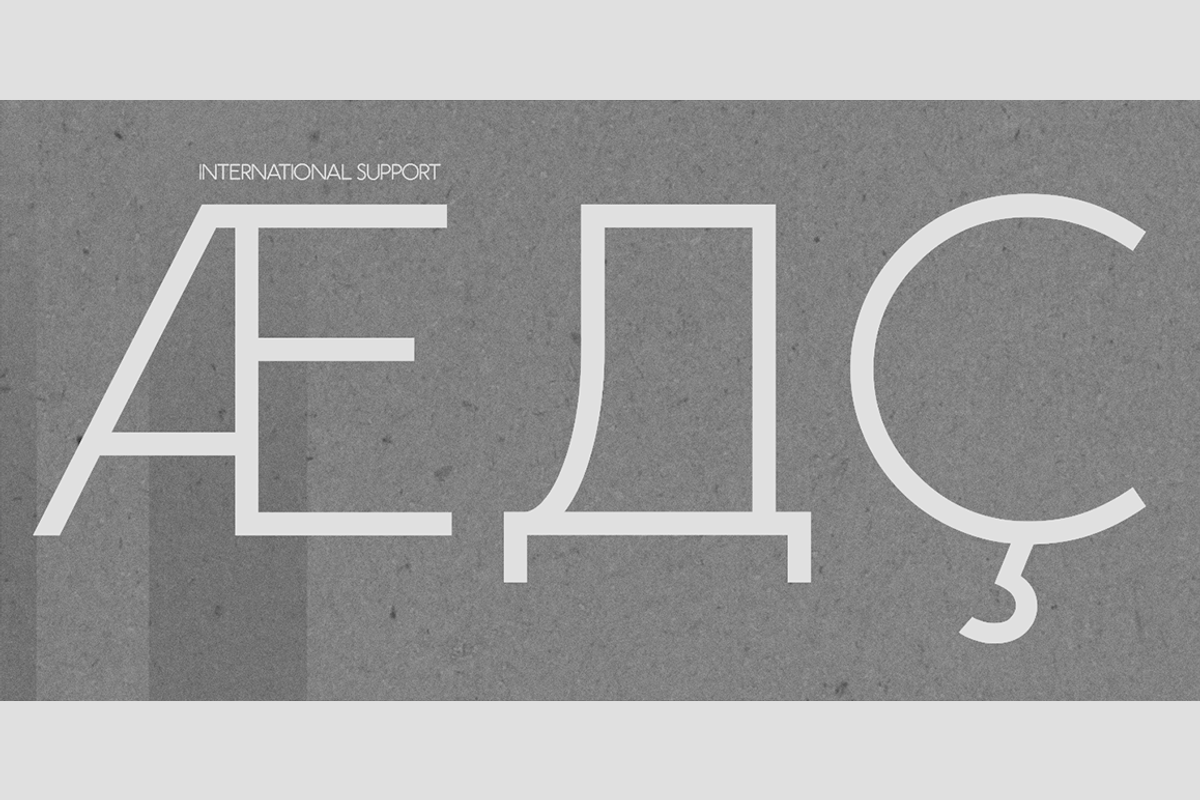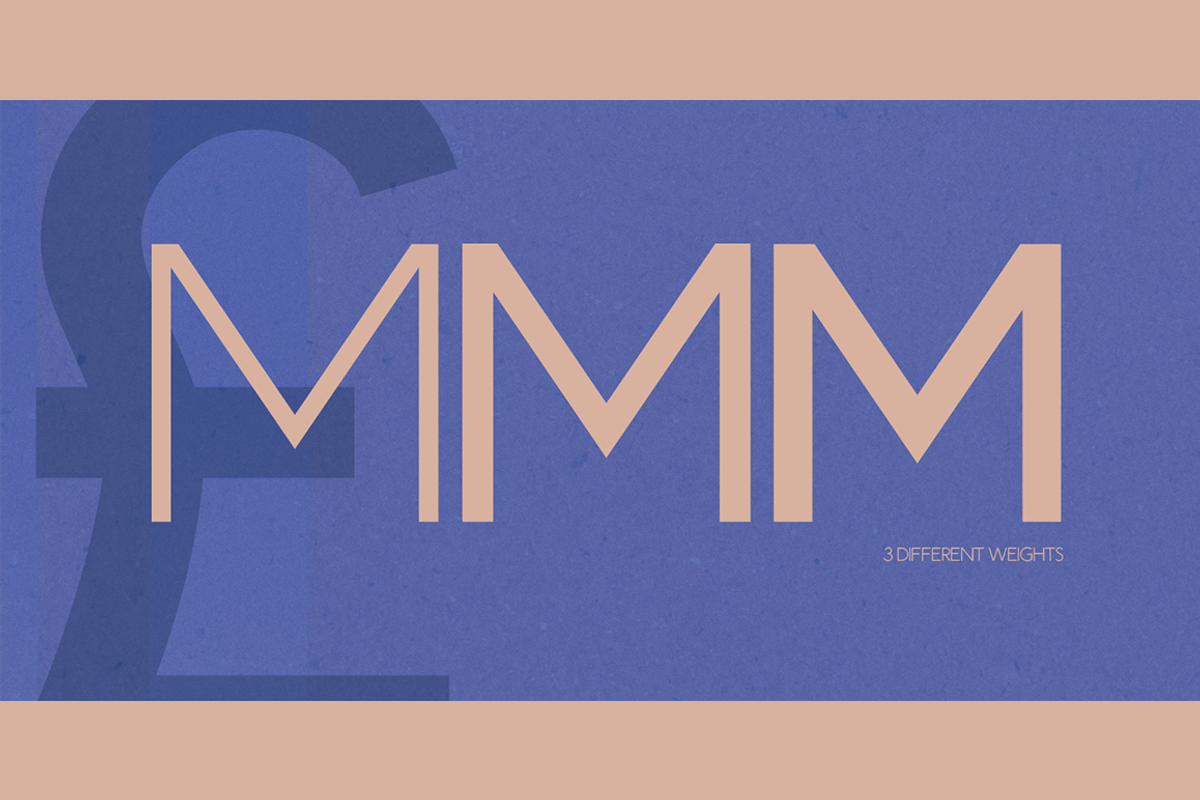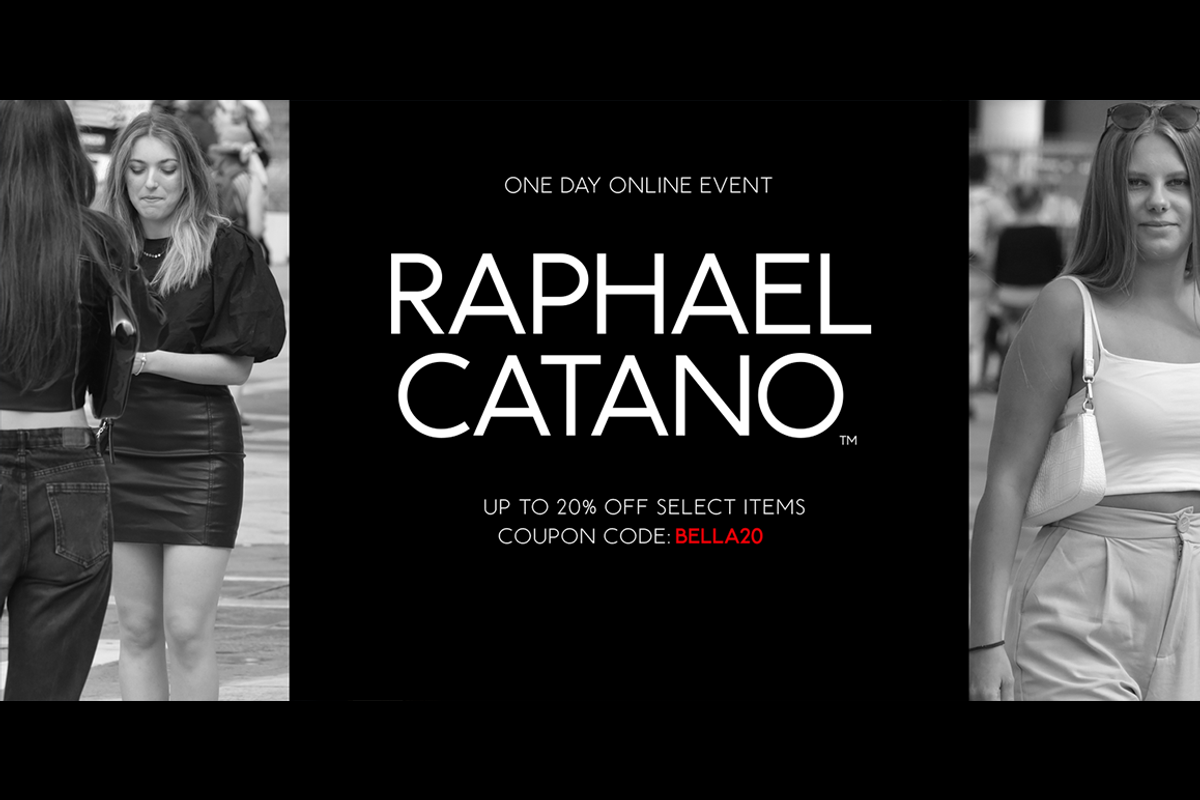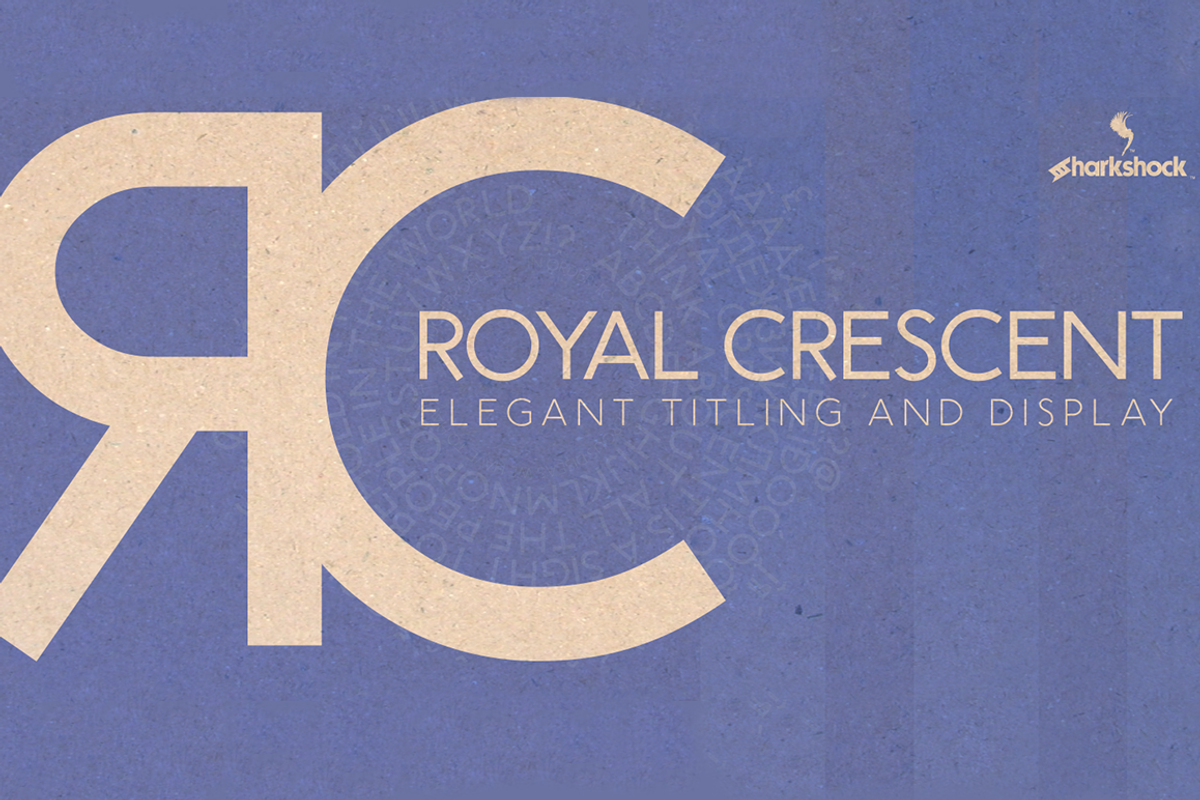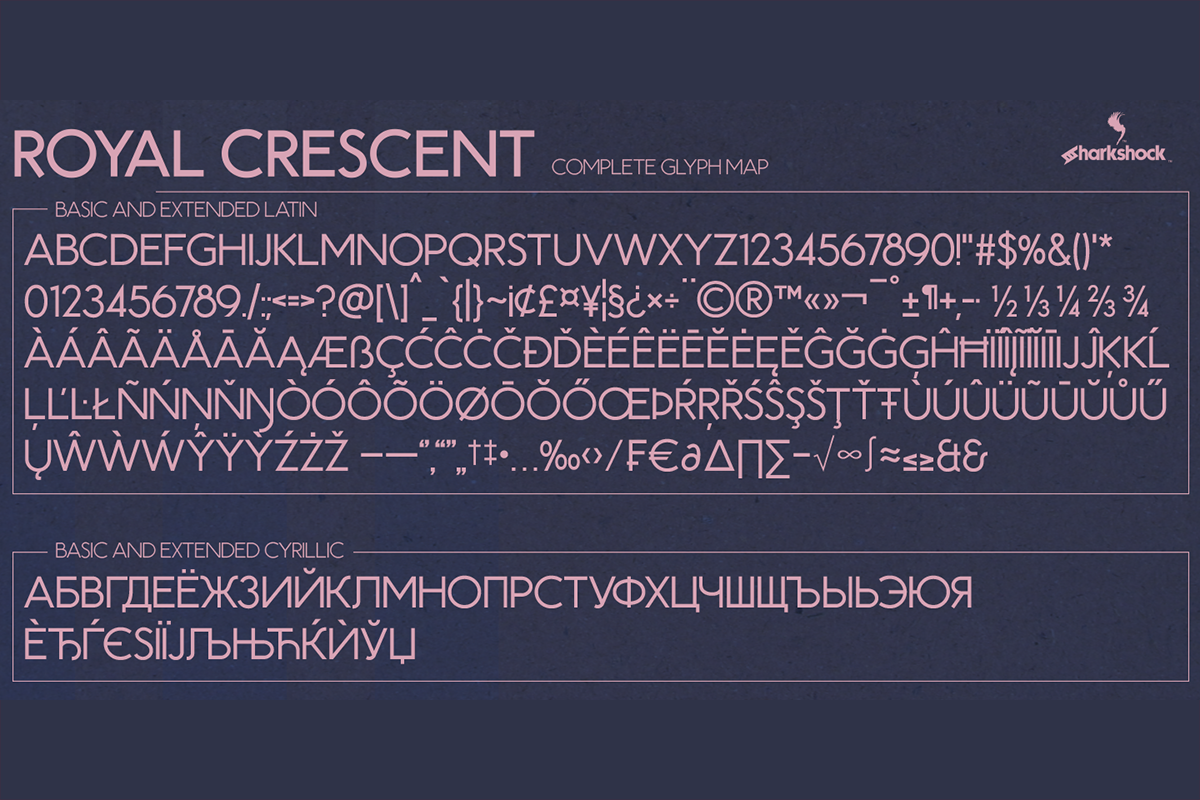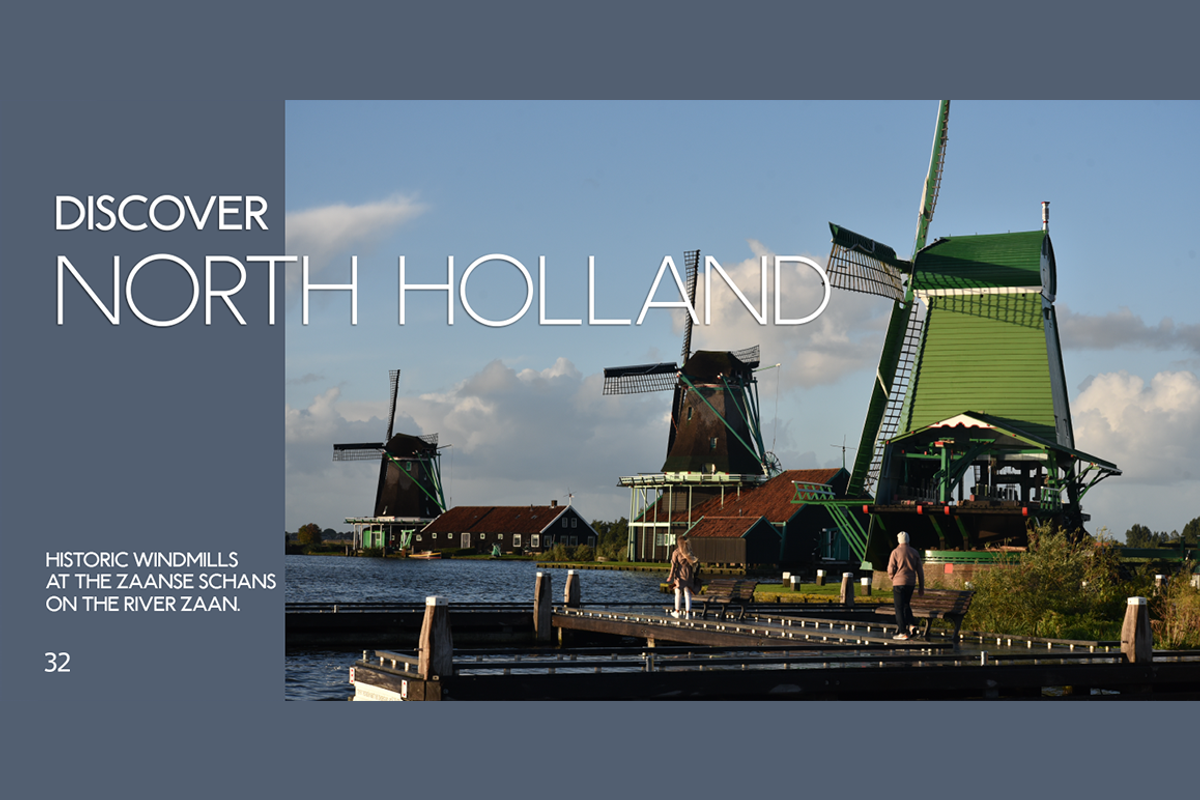
Royal Crescent
Royal Crescent is an all caps display sans with elegance and simplicity in mind. Its uniform width and clean strokes are consistent throughout creating low contrast in all 3 versions. Even at its heaviest weight, the characters aren’t particularly bold. There are slight variations, between a few upper and lowercase characters which can be used interchangeably. Titling was its primary purpose but there are a multitude of uses to fit different needs. Use Royal Crescent for web headers, a magazine, or luxury logo. Royal Crescent is equipped with Basic/Extended Latin, punctuation, symbols, diacritics, Cyrillic, kerning, and fractions.